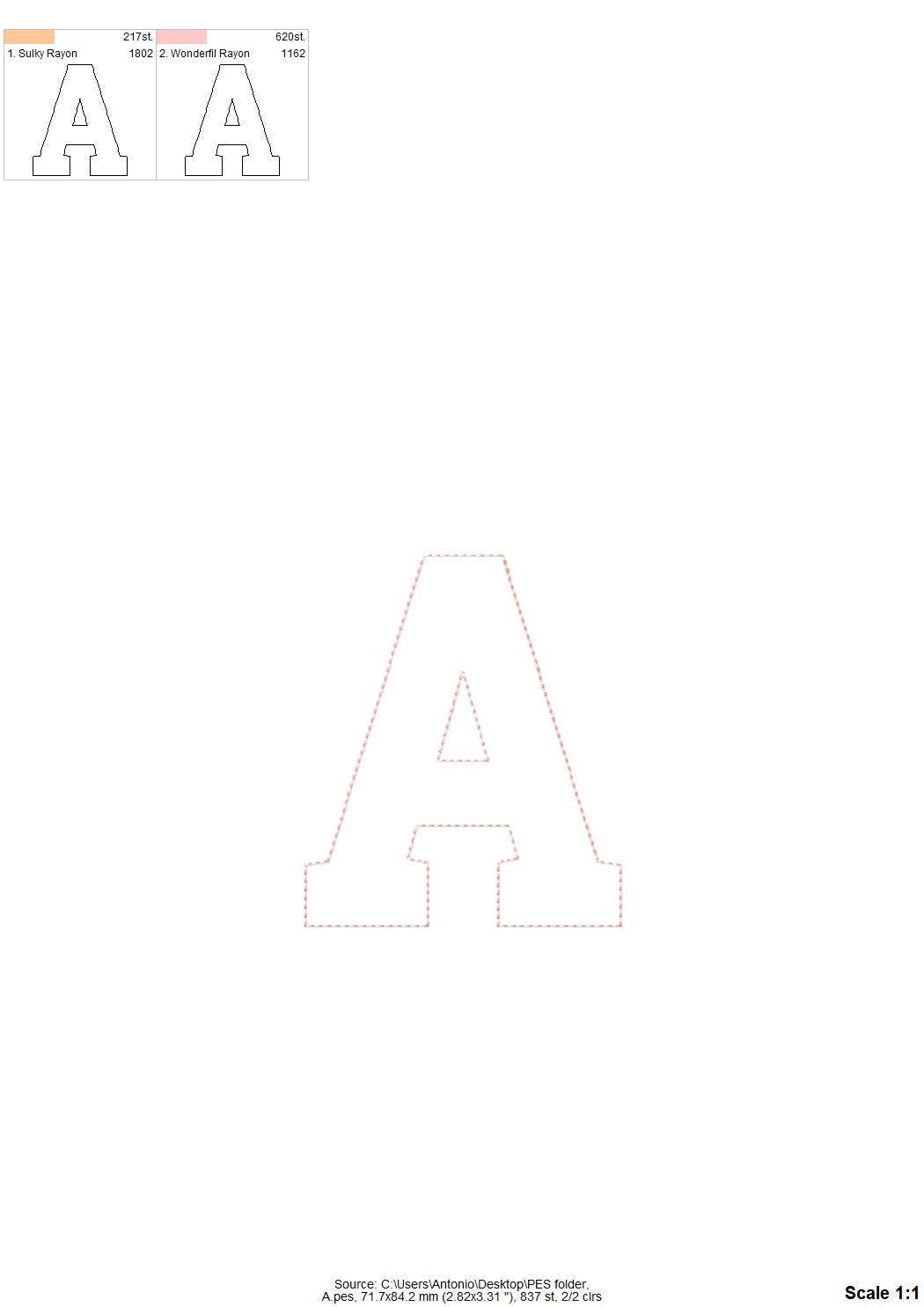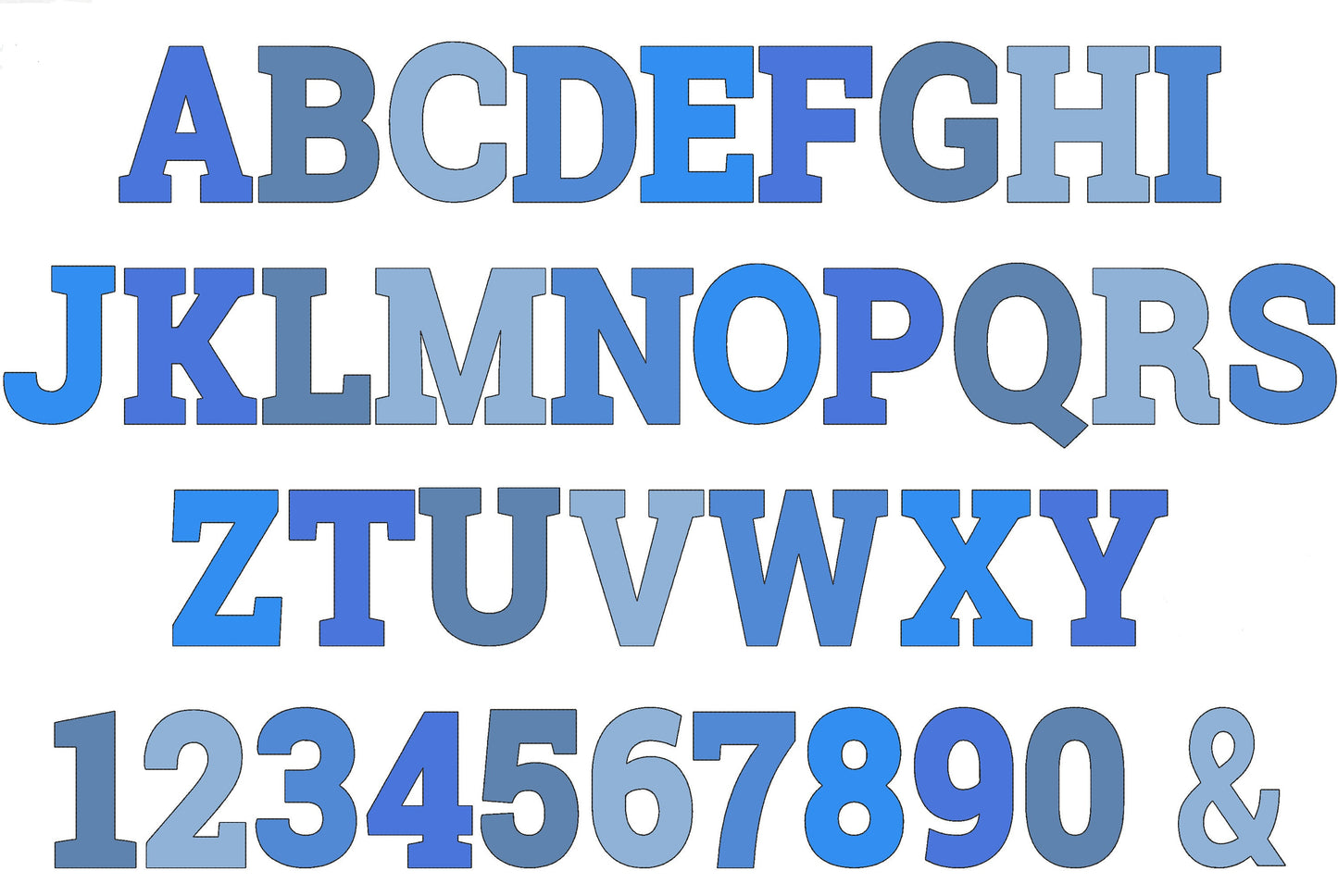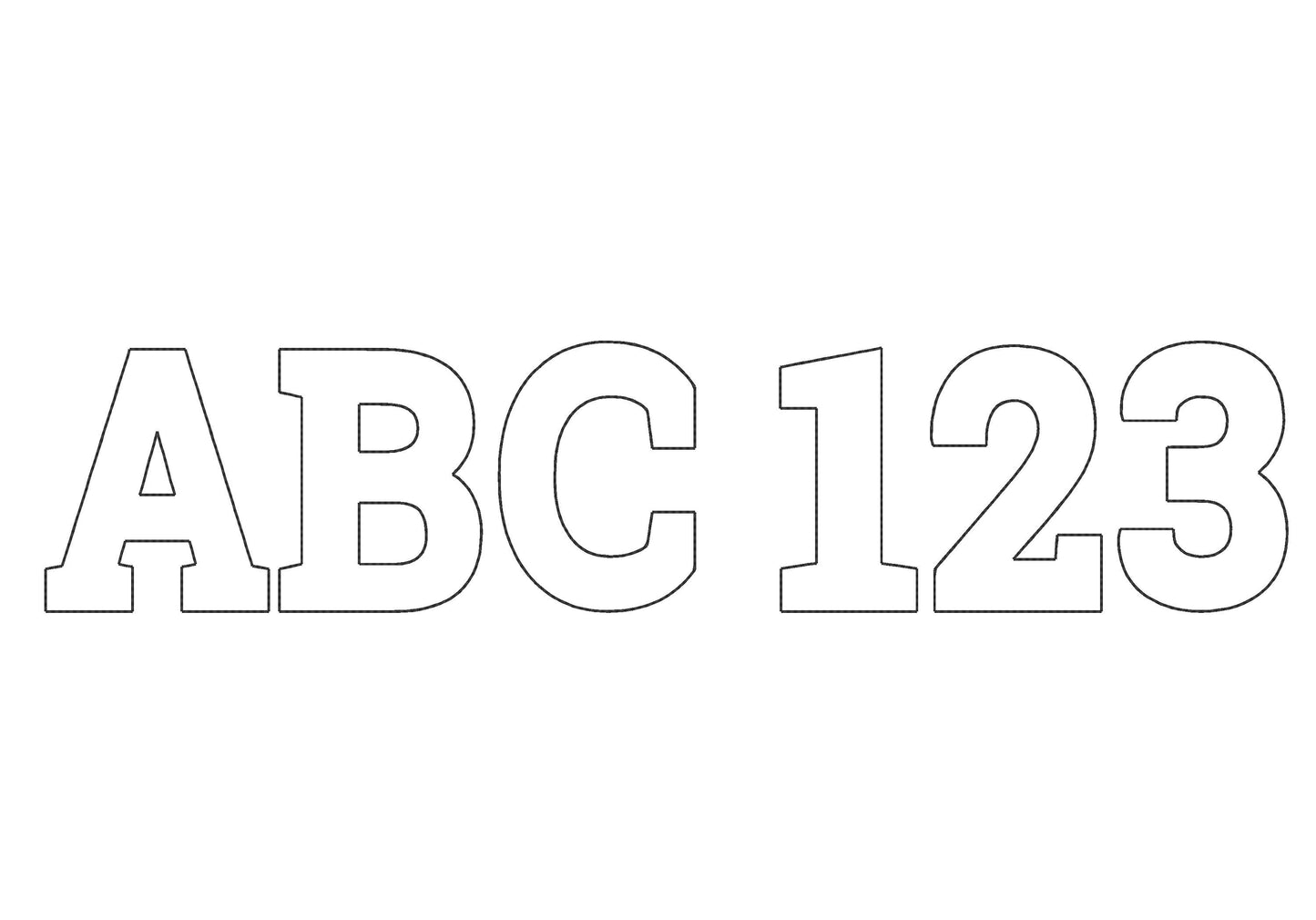
Or click to open the linkA light applique font with raggedy open edges and a bean stitch outline. Soft and quick for kids' names, quilts, pillows and rustic decor.
Uppercase letters A to Z, numbers 0 to 9 and an ampersand, in seven sizes: 2, 2.5, 3, 3.5, 4, 5 and 6 inches. The fabric edges stay open for a frayed, raggedy look.